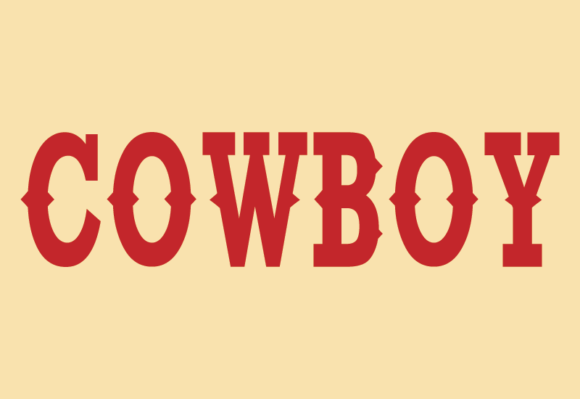
Introducing Cowboy Font - The Perfect Choice for Your Retro-Inspired Designs!
Are you searching for the ideal font to give your projects a touch of vintage charm? Look no further! Cowboy Font, a remarkable serif typeface, is here to elevate your creativity and transport your designs back in time. Designed by the talented team at GraphicsNinja, this font is specifically crafted to meet the demands of modern design while paying homage to the classic Western style.
With its clean retro look, Cowboy Font captures the essence of simplicity and elegance. Its balanced proportions and timeless appeal make it the ultimate choice for creating a minimalist aesthetic in various design applications. Whether you're designing a book cover, crafting a captivating logo, or revamping your website, Cowboy Font will effortlessly bring your vision to life.
1. Unleash Your Creativity: Cowboy Font empowers you to unleash your creativity and add a touch of nostalgia to your designs. Its versatile nature allows you to experiment with different layouts, creating captivating visuals that will leave a lasting impression on your audience.
2. Vintage Charm: The retro-inspired design of Cowboy Font instantly transports your projects to the golden era. Whether you want to capture the essence of the Wild West or evoke a sense of old-fashioned elegance, this font is your gateway to vintage charm.
4. Stand Out from the Crowd: In today's competitive market, it's crucial to stand out from the crowd. Cowboy Font gives your designs a unique edge, making them instantly recognizable and memorable. Whether you're designing a poster, packaging, or social media graphics, this font will make your brand shine.
5. Timeless Appeal: Fonts come and go, but Cowboy Font's timeless appeal ensures that your designs will never go out of style. Future-proof your projects by choosing a font that will withstand the test of time and remain relevant for years to come.